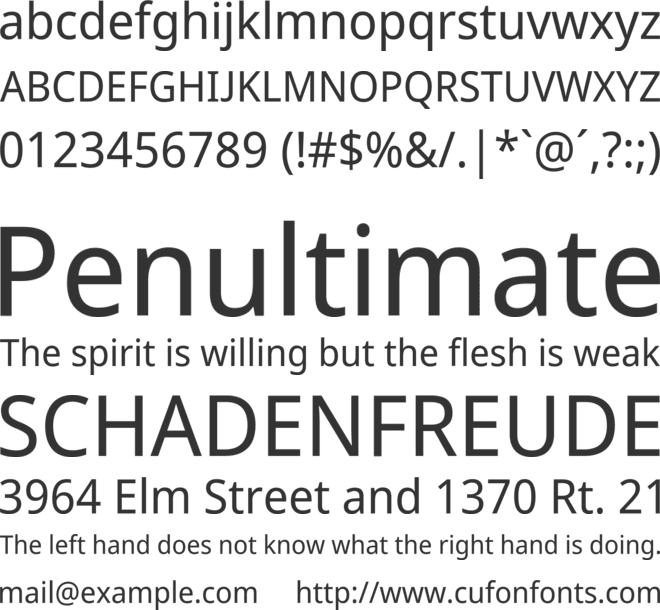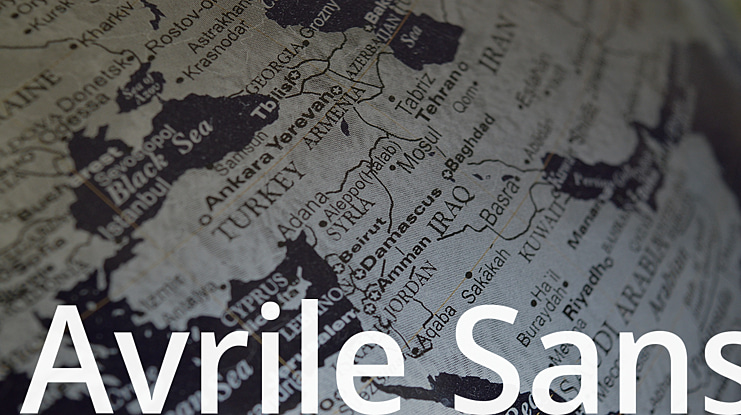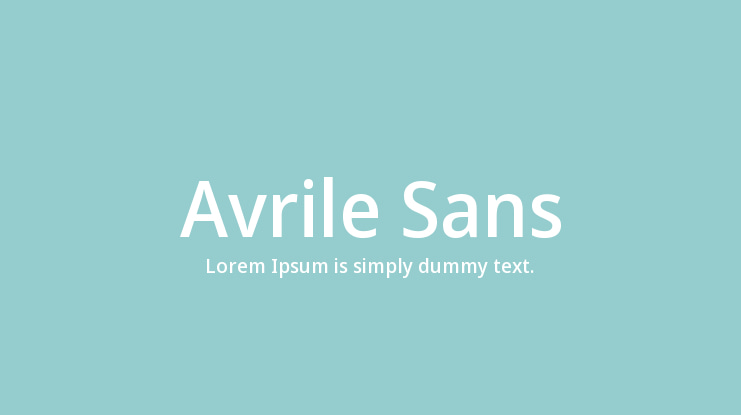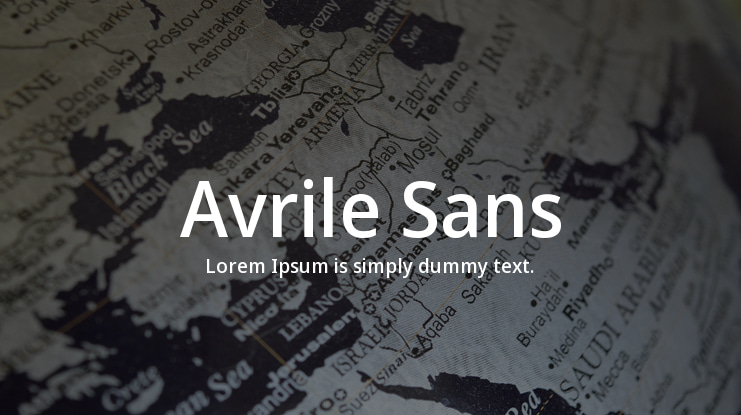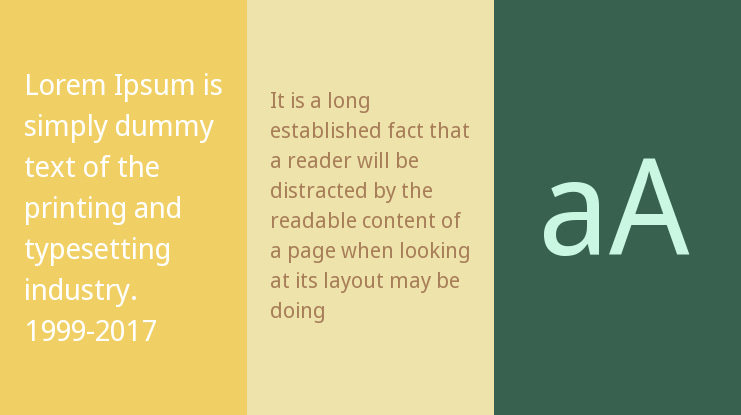
Avrile Sans Font Family
Monotype Design Team
Avrile Sans is developed from the Noto Sans Display fonts. The first modifications are a non-descending uppercase 'J' by default, true tabular figures, and more uniform style data across all 18 weights. It has 9 weights with matching italics. Also, it has a serif family, Avrile Serif. The fonts Noto Sans and Droid Sans in this site are severely old, so I forked that family and posted it here.